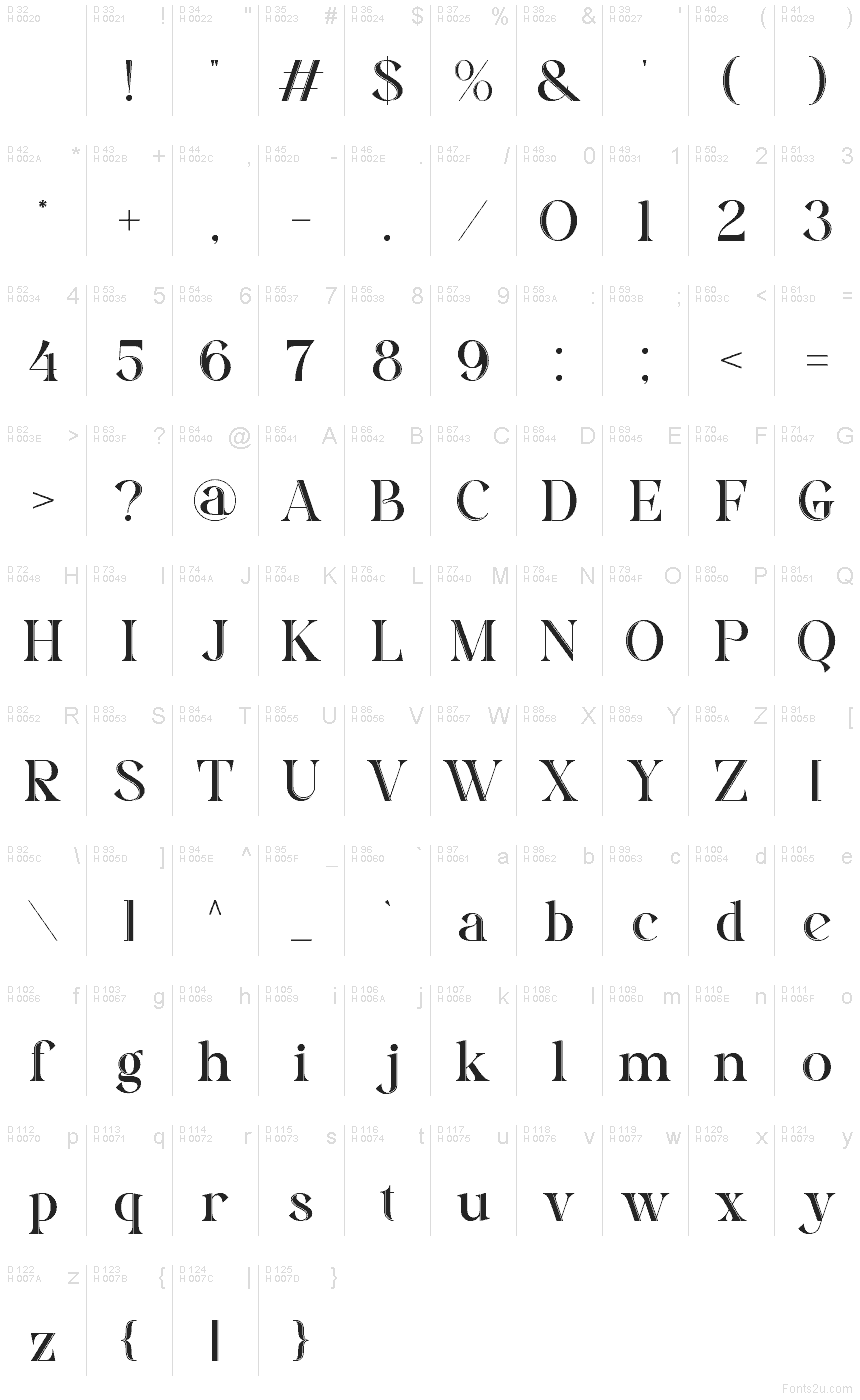
Breva Regular
Breva font by Ermedia Studio is a free decorative serif display font that leans into drama: high-contrast strokes, razor-clean cuts, and voluptuous curves that sweep like ink pulled by a fine nib. Its rhythm feels both sculpted and airy, with negative spaces carving elegant swoops that catch light like polished lacquer. The result is a confident, couture voice that reads as premium without shouting.
Using Breva, headlines lock in with a sleek cadence that elevates beauty branding, fashion posters, editorial covers, luxury packaging, boutique menus, and event invitations. This free font shines at large sizes where those chiselled joins and silky bowls can breathe; pair it with a quiet, modern sans for body copy to let the display work sing.